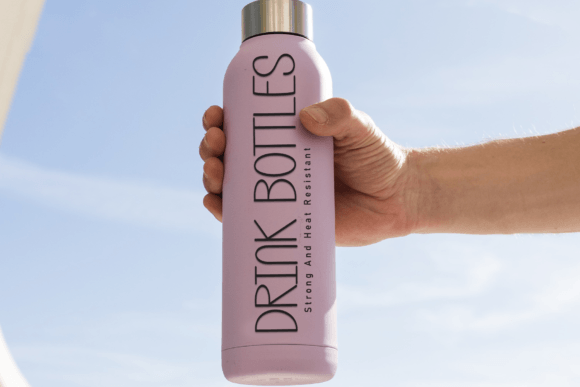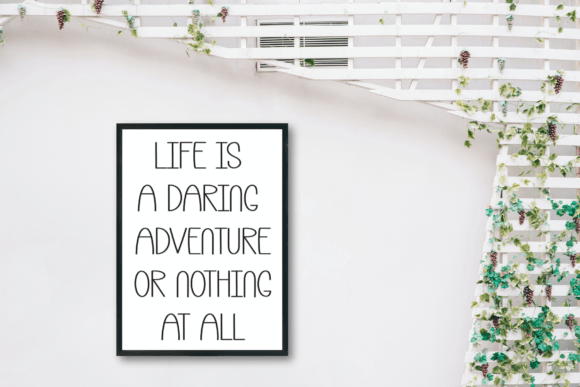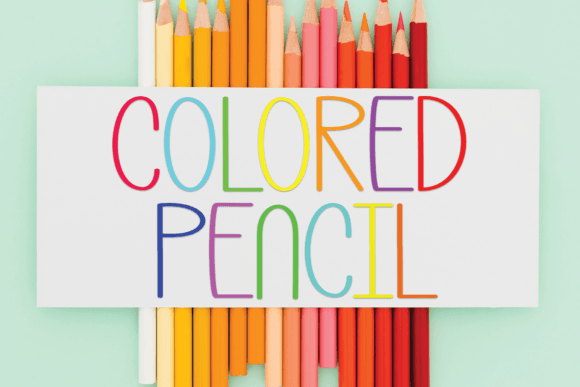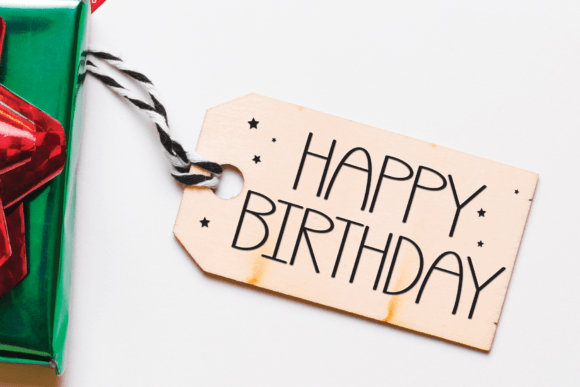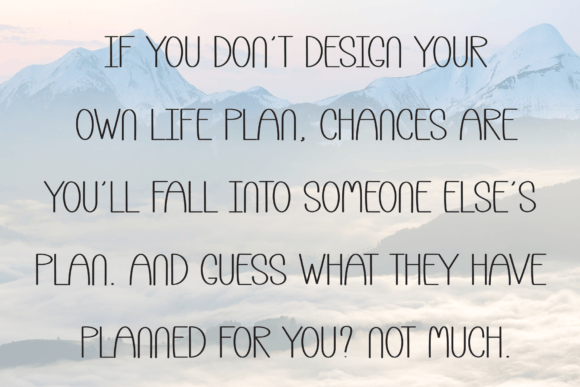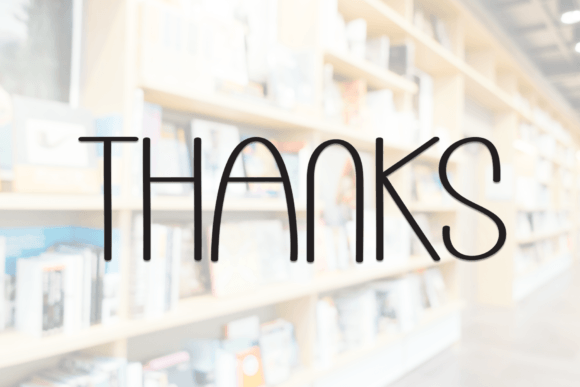
Introducing Book Store Font: The Sweet and Friendly Handwritten Display Font
Are you a designer, crafter, or DIY enthusiast looking for a font that can add a touch of whimsy and fun to your projects? Look no further than Book Store Font, a sweet and friendly handwritten display font that’s perfect for a variety of creative endeavors. In this article, we’ll take a closer look at Book Store Font, its features, and how you can use it to elevate your designs.
What is Book Store Font?
Book Store Font is a handwritten display font that’s designed to bring a sense of warmth and friendliness to your designs. It’s a carefully crafted font that’s inspired by the charming and quirky feel of bookstore signs, labels, and handwritten notes. With its unique blend of elegance and playfulness, Book Store Font is ideal for creating eye-catching headings, titles, and text that needs to stand out.
Key Features of Book Store Font
- Cute and Fun: Book Store Font is a font that’s designed to put a smile on people’s faces. Its playful and whimsical feel makes it perfect for designs that need a touch of humor and personality.
- Handwritten: This font is carefully hand-drawn to give it a unique and authentic feel. Each letter is crafted with love and care to ensure that it looks like it was written by hand.
- Display Font: Book Store Font is a display font that’s designed to make a statement. It’s perfect for headings, titles, and text that needs to stand out.
- Versatile: This font is incredibly versatile and can be used for a wide range of projects, from wedding invitations and cards to posters, flyers, and more.
Use Cases for Book Store Font
So, what can you use Book Store Font for? The possibilities are endless! Here are a few ideas to get you started:
- Wedding Invitations: Add a touch of romance and whimsy to your wedding invitations with Book Store Font. It’s perfect for creating beautiful and eye-catching invitations that will set the tone for your special day.
- Cards and Stationery: Book Store Font is ideal for creating fun and playful cards, gift tags, and stationery. Whether you’re sending a birthday card or a thank-you note, this font is sure to add a touch of personality to your message.
- Posters and Flyers: Use Book Store Font to create eye-catching posters and flyers that will grab people’s attention. Its playful and whimsical feel makes it perfect for promoting events, products, or services.
- Social Media Graphics: Book Store Font is also great for creating social media graphics, such as Facebook posts, Instagram stories, and Twitter headers. Its fun and playful feel will help you stand out in a crowded online space.
Tips for Using Book Store Font
Here are a few tips for using Book Store Font effectively:
- Use it sparingly: Book Store Font is a display font that’s designed to make a statement. Use it sparingly to add emphasis to your text, rather than overusing it and losing its impact.
- Pair it with other fonts: Book Store Font looks great when paired with other fonts, such as serif or sans-serif fonts. Experiment with different combinations to find the perfect pairing for your design.
- Experiment with colors: Book Store Font looks great in a variety of colors, from bright and bold to soft and pastel. Experiment with different colors to find the perfect shade for your design.
Book Store Font is a sweet and friendly handwritten display font that’s perfect for designers, crafters, and DIY enthusiasts. Its playful and whimsical feel makes it ideal for a variety of creative projects, from wedding invitations and cards to posters, flyers, and social media graphics. With its unique blend of elegance and playfulness, Book Store Font is sure to add a touch of personality to your designs. So why not give it a try and see what amazing creations you can come up with?